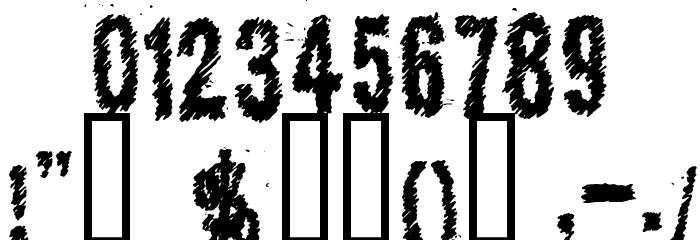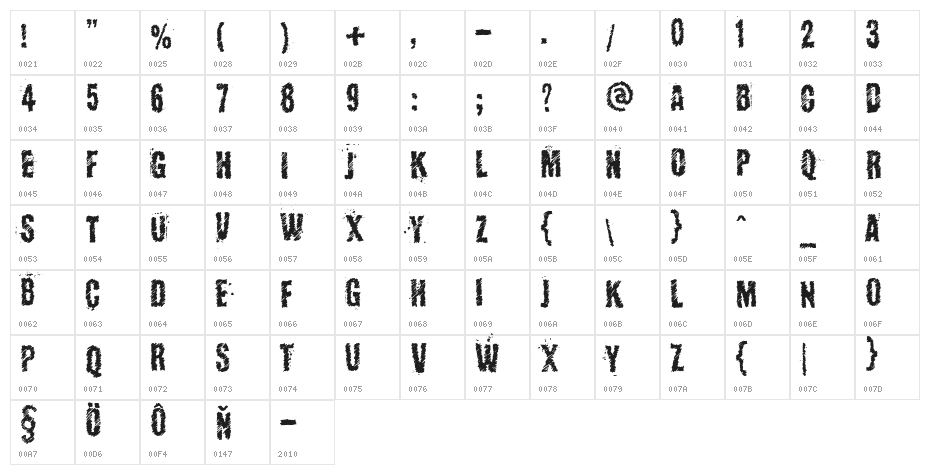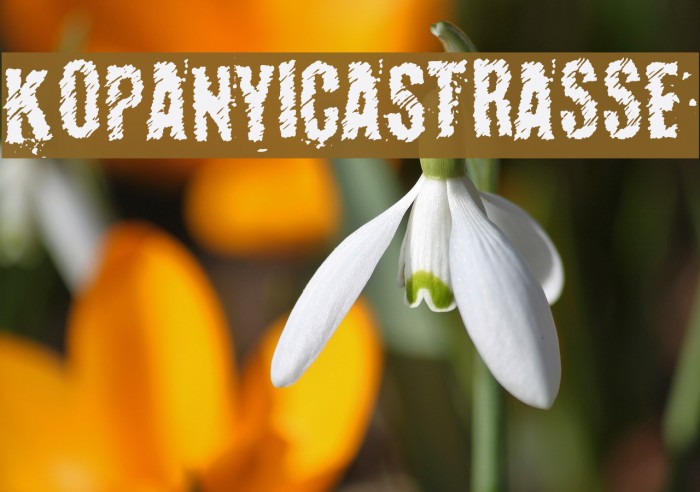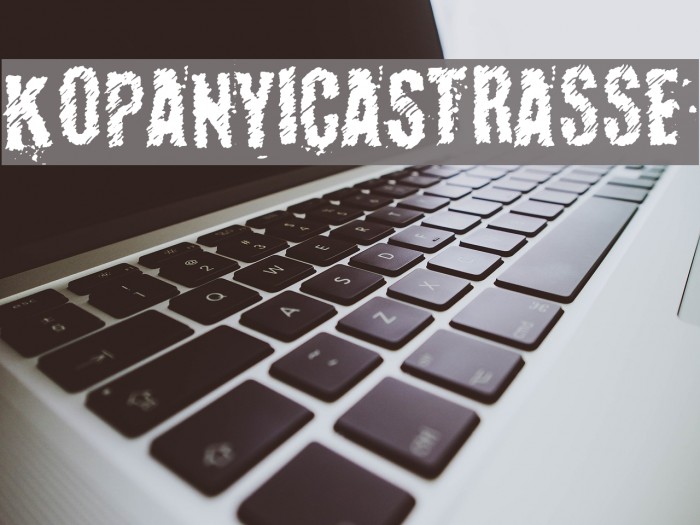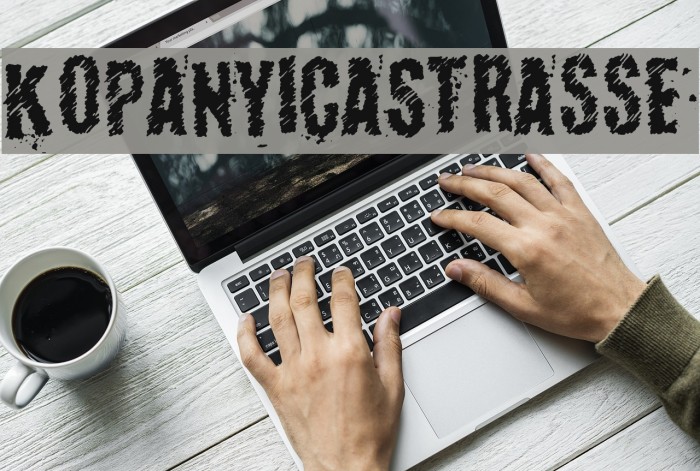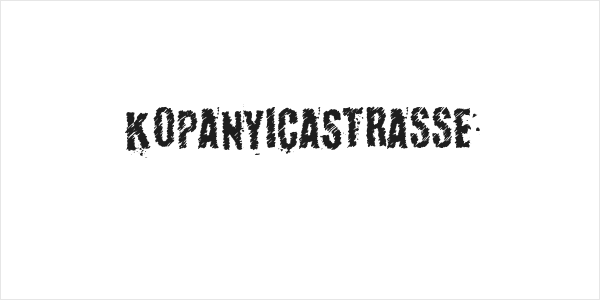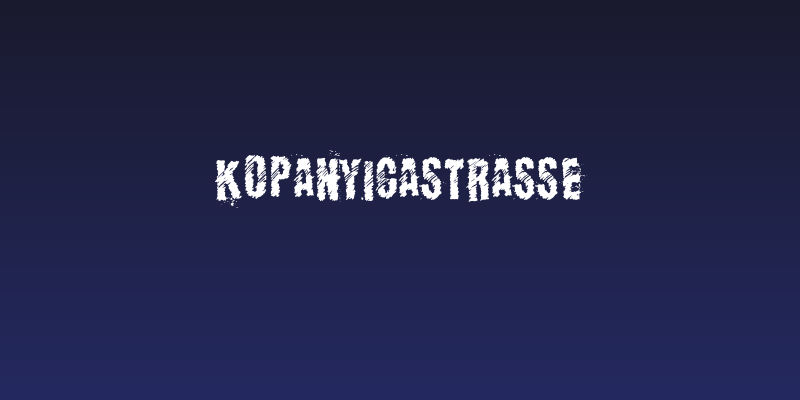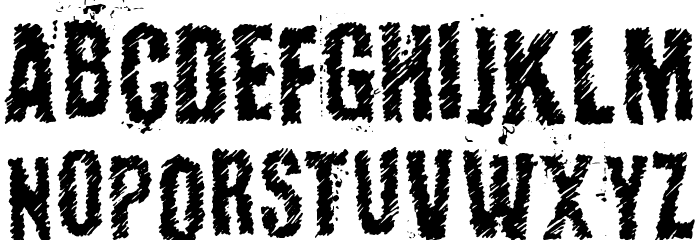
KopanyicaStrasse Font
KopanyicaStrasse Description
This font features a rugged, distressed style with a bold and impactful appearance. The characters are heavily textured, giving them a worn, grunge-like effect. Each letter and number is distinctively rough around the edges, creating a sense of movement and energy. The font maintains a consistent height across all characters, ensuring readability despite its chaotic design. The uppercase and lowercase letters share a similar aesthetic, with the uppercase being slightly more pronounced. The numbers and special characters follow the same distressed theme, making them cohesive with the rest of the font.
| Overall Style | Grunge, Urban, Distressed |
| Use Case | Logos, Posters, Album Covers |
| Proposed Projects | Ideal for music album covers, edgy posters, streetwear branding, or any project needing a gritty, urban feel. |